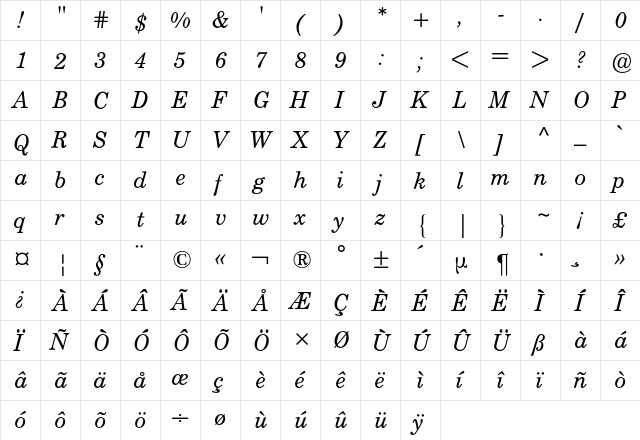
Century ATF Schoolbook BQ Regular
Design Context for Century ATF Schoolbook BQ Typeface
Century ATF Schoolbook BQ offers clean, dependable letterforms without strong stylistic allegiance, making it a practical choice for designers who need flexibility.